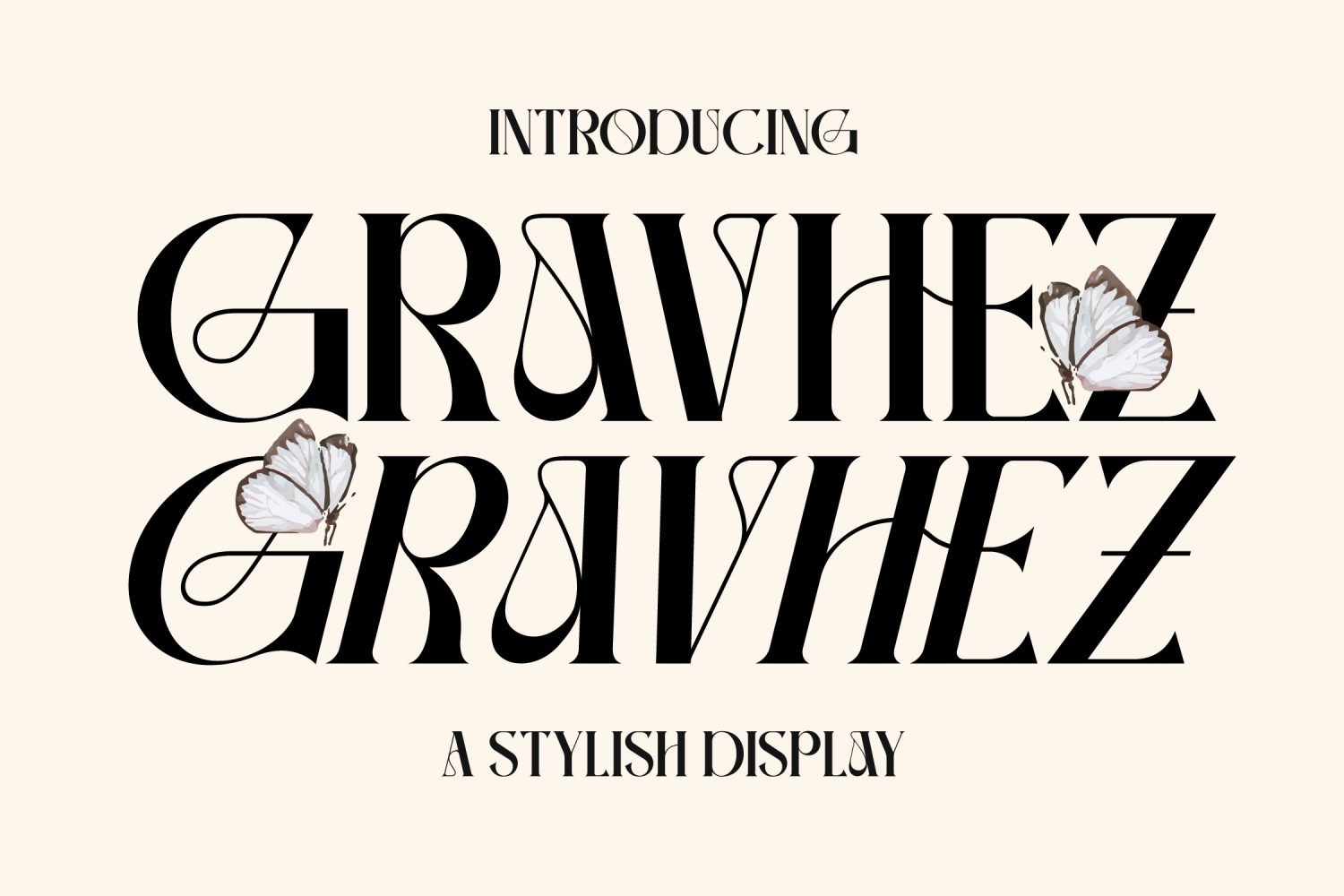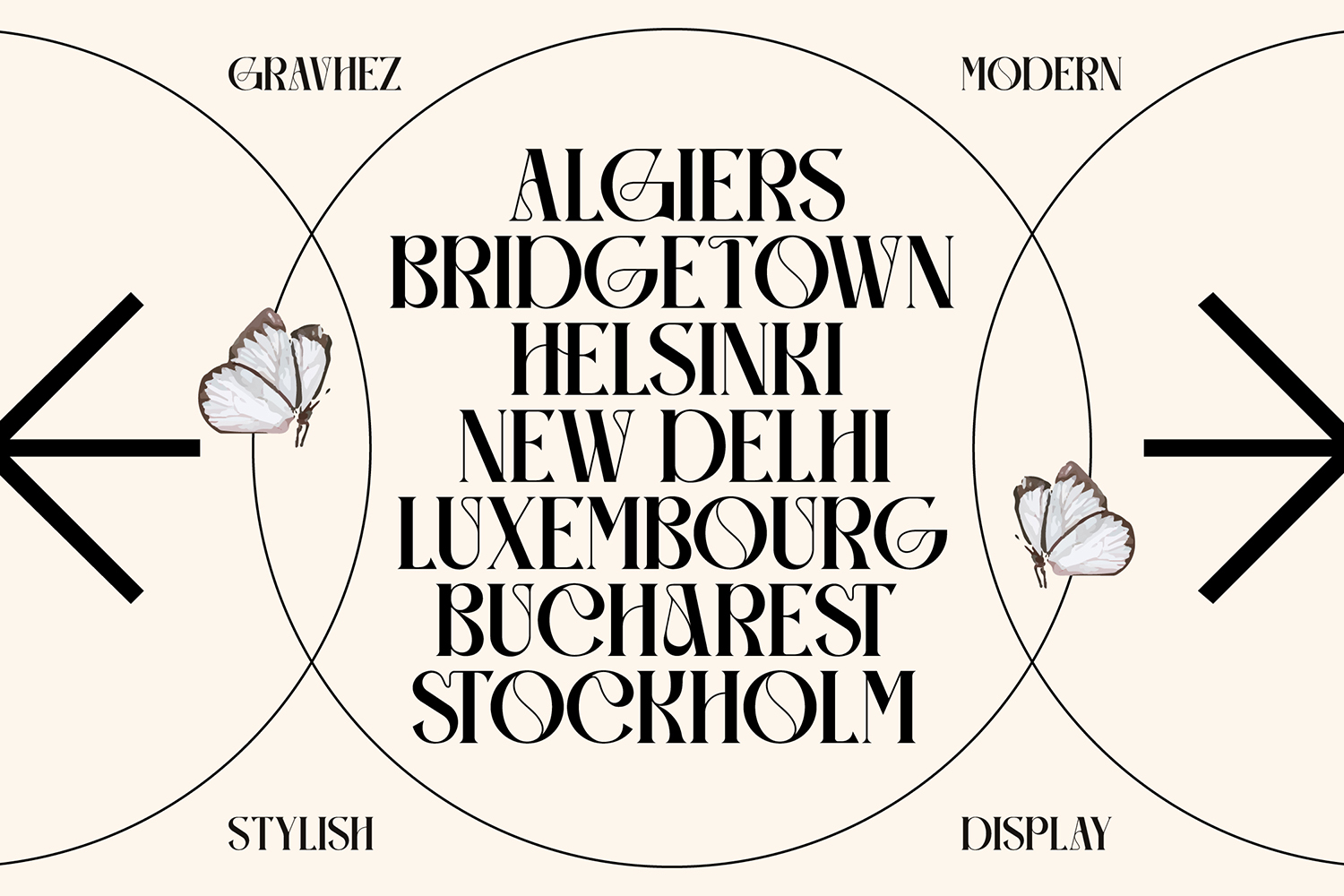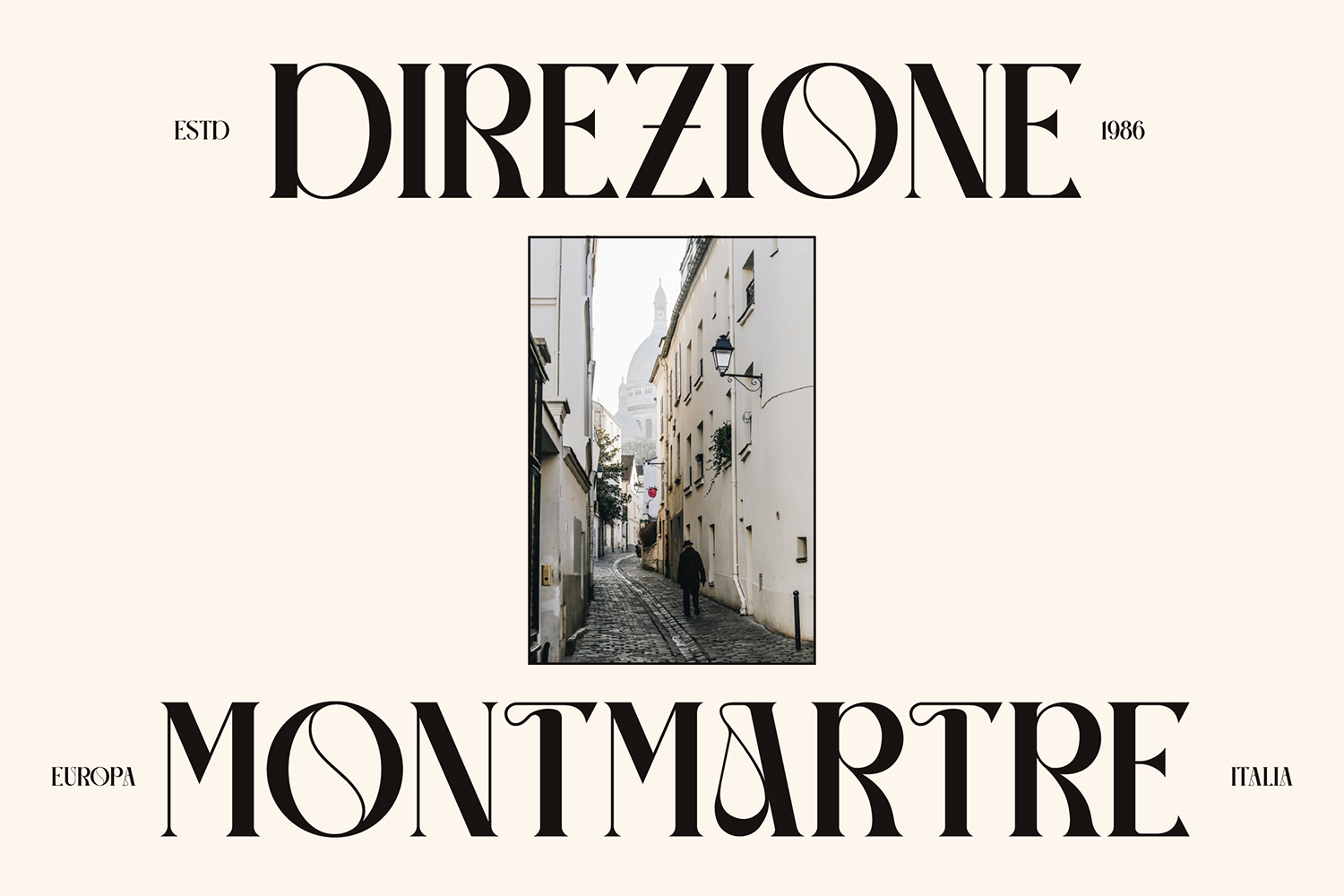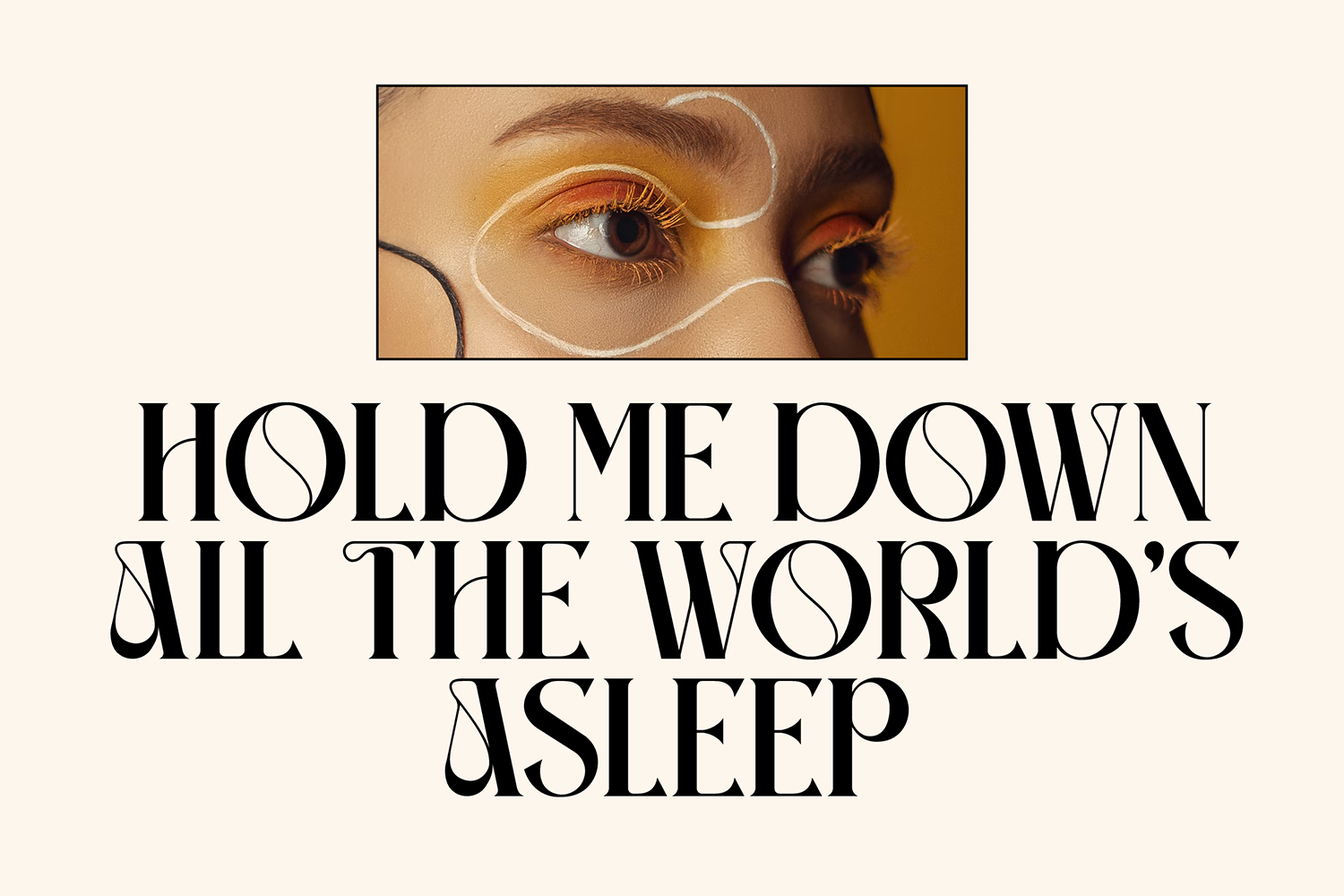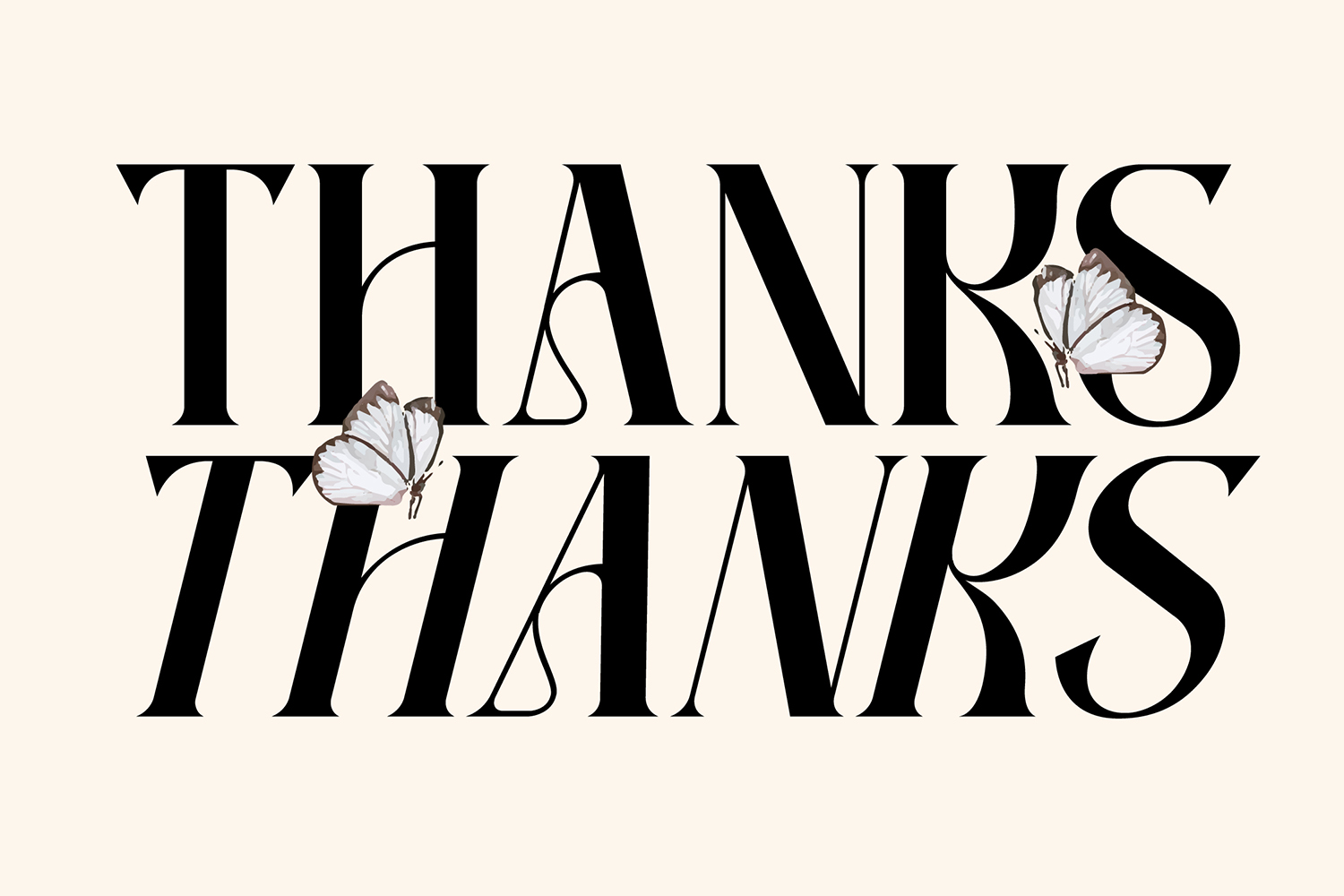
Gravhez Free Font
Gravhez Free Font is a serif modern and classic typeface that its own unique style & modern look. This typeface is perfect for an elegant & luxury logo, book or movie title design, fashion brand, magazine, clothes, lettering, quotes, and so much more. This free typeface was designed by a talented Storytype Studio. If you like it don’t forget to check out the full version.